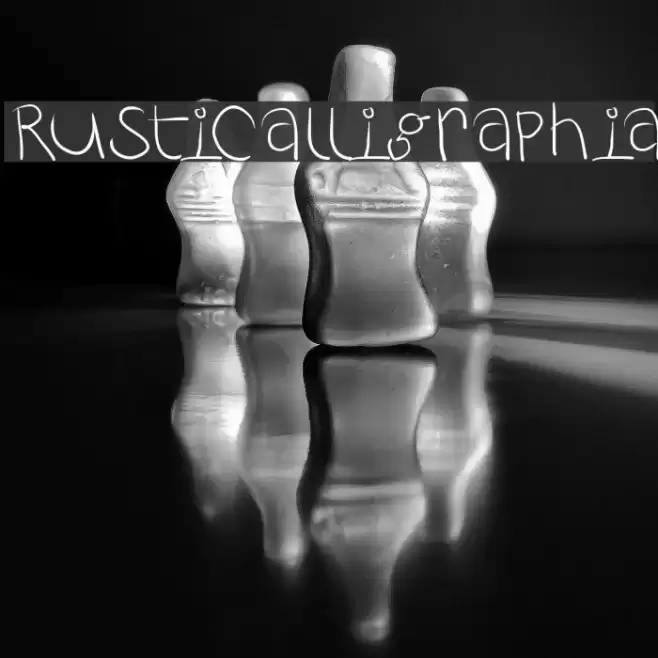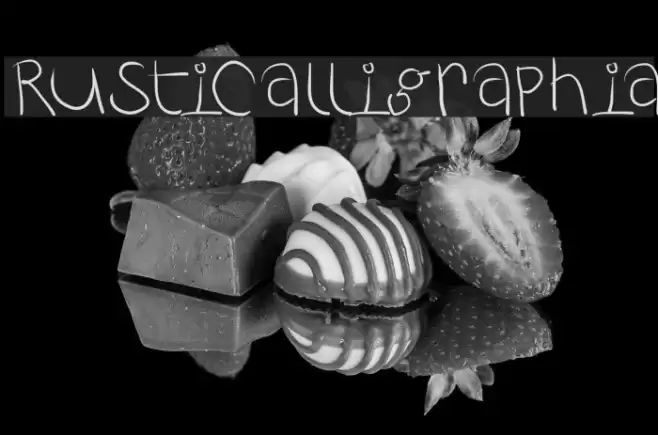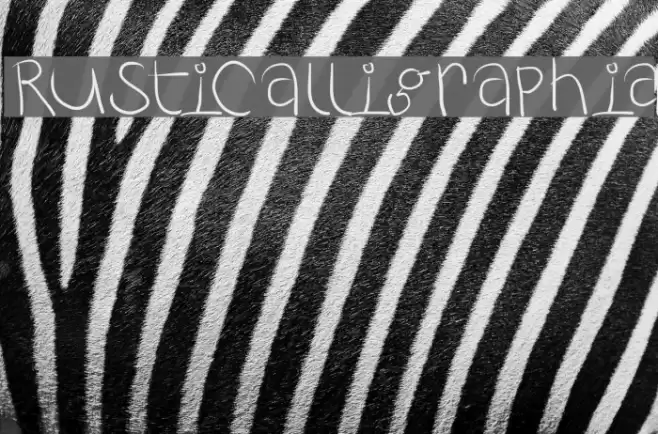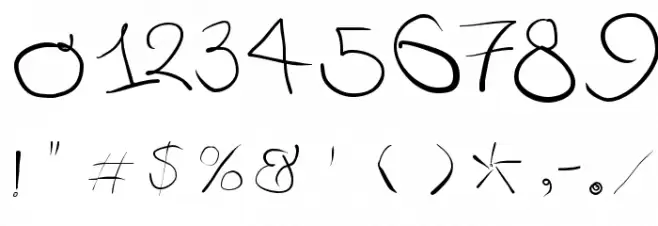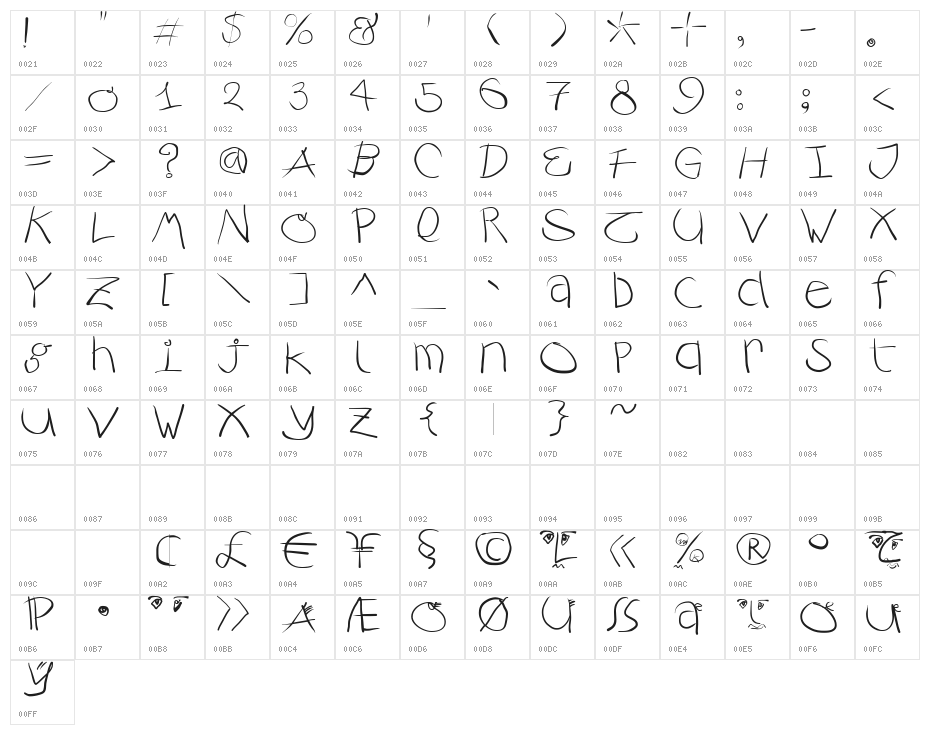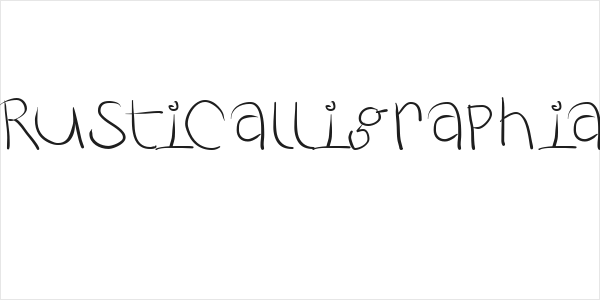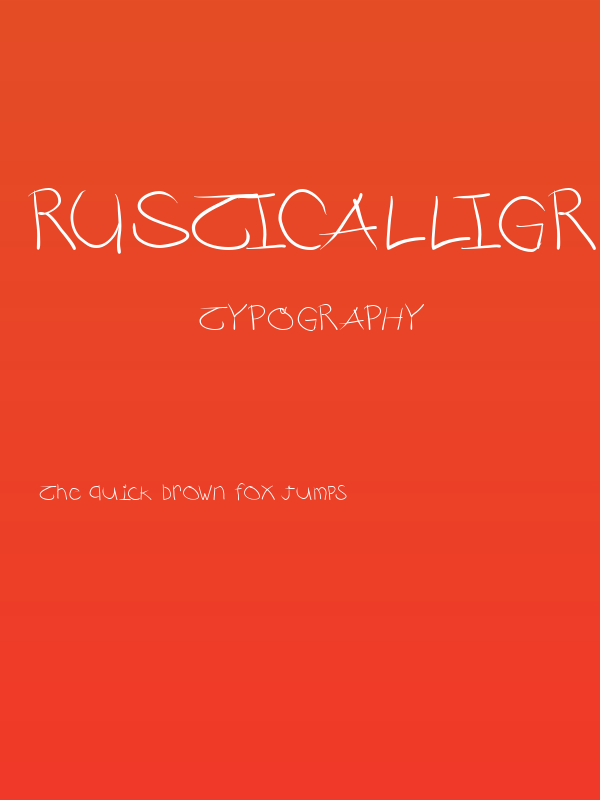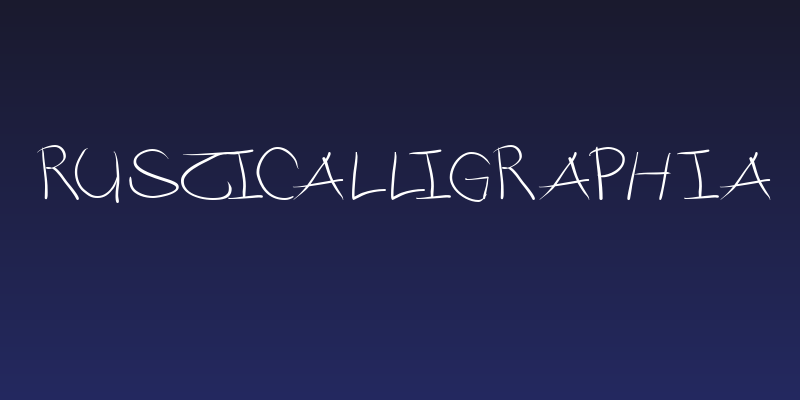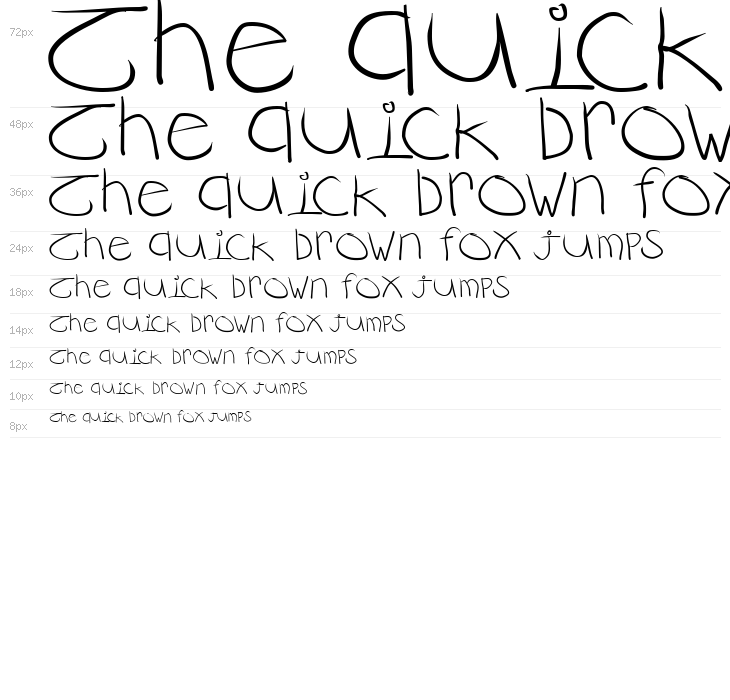
RustiCalligraphia Font
RustiCalligraphia Description
This font exudes a whimsical and artistic flair, characterized by its playful and irregular strokes. The letters have a hand-drawn quality, with varying line thicknesses that add a sense of movement and dynamism. The uppercase letters are bold and expressive, while the lowercase letters maintain a consistent flow, enhancing the font's overall charm. Numbers and special characters are crafted with the same artistic touch, making them stand out. This font is perfect for projects that require a personal and creative touch, such as invitations, greeting cards, or artistic posters.
A whimsical, hand-drawn font with playful and irregular strokes from Kids fonts.
- Proposed Projects: Ideal for creative projects like invitations, greeting cards, and artistic posters.
- Use Case: Logos, Headlines, Artistic projects